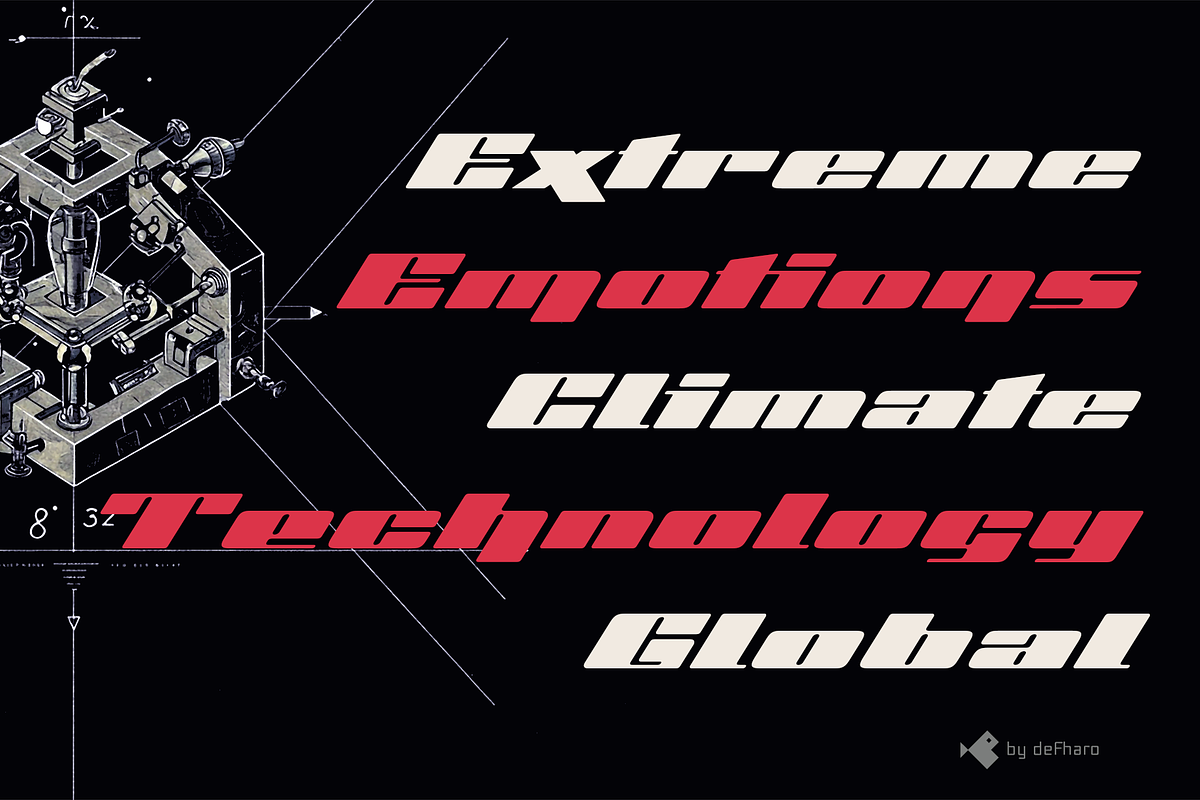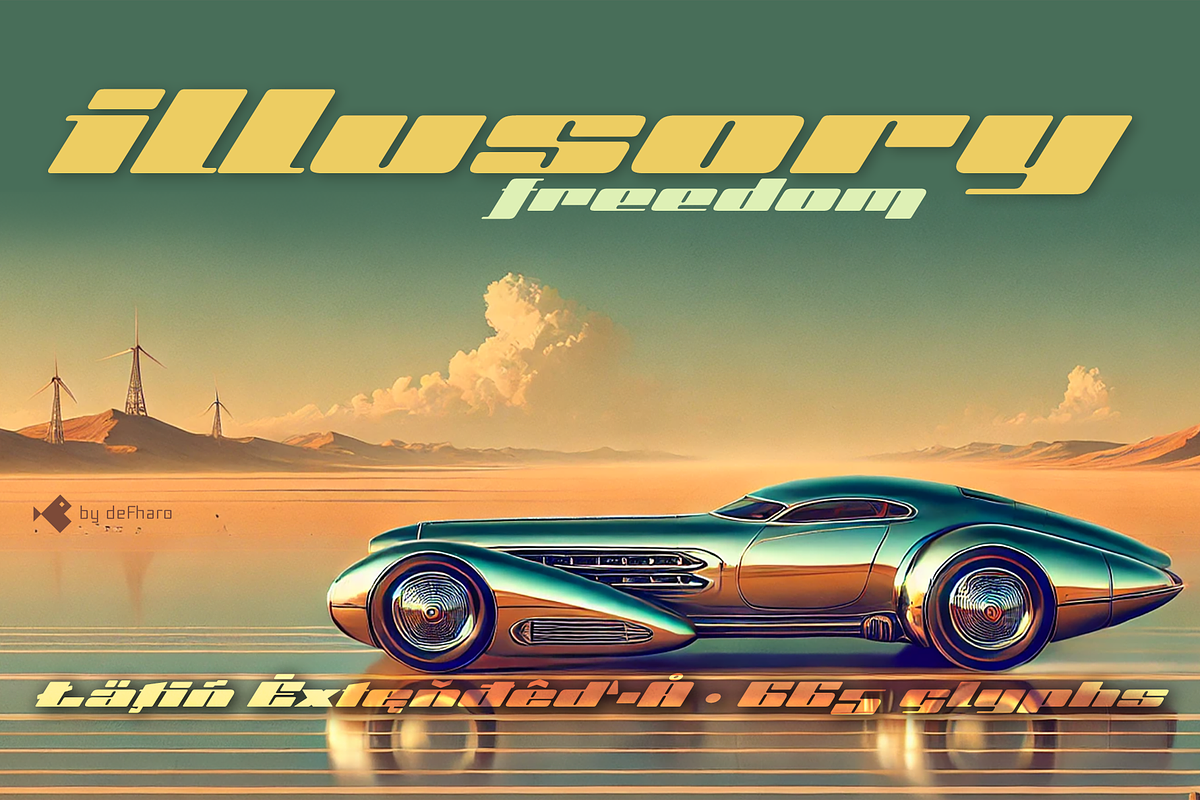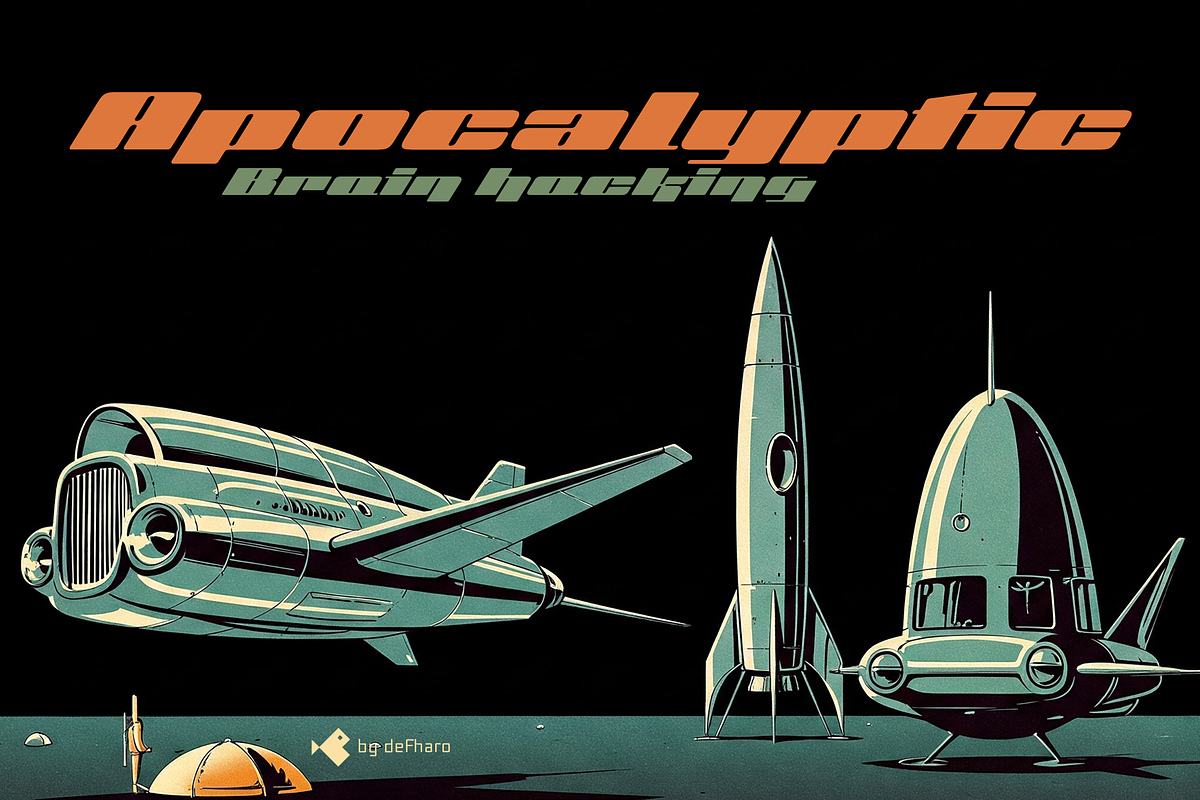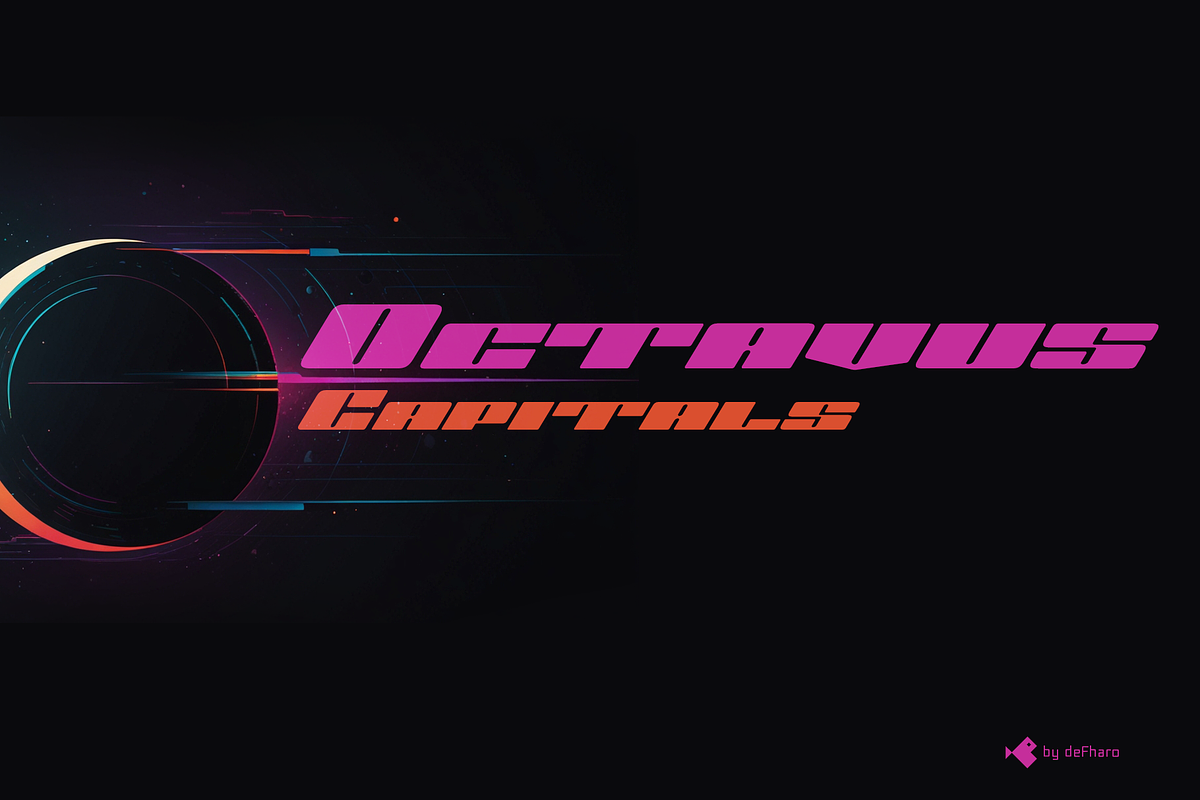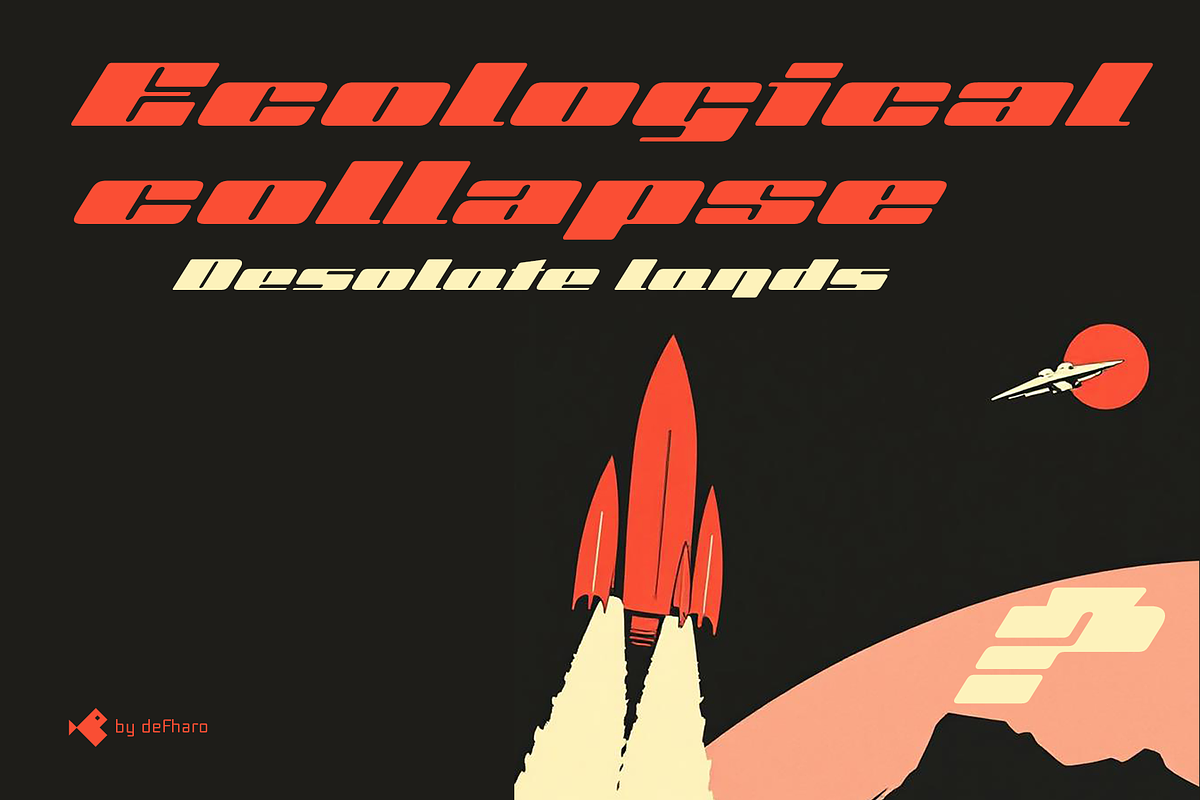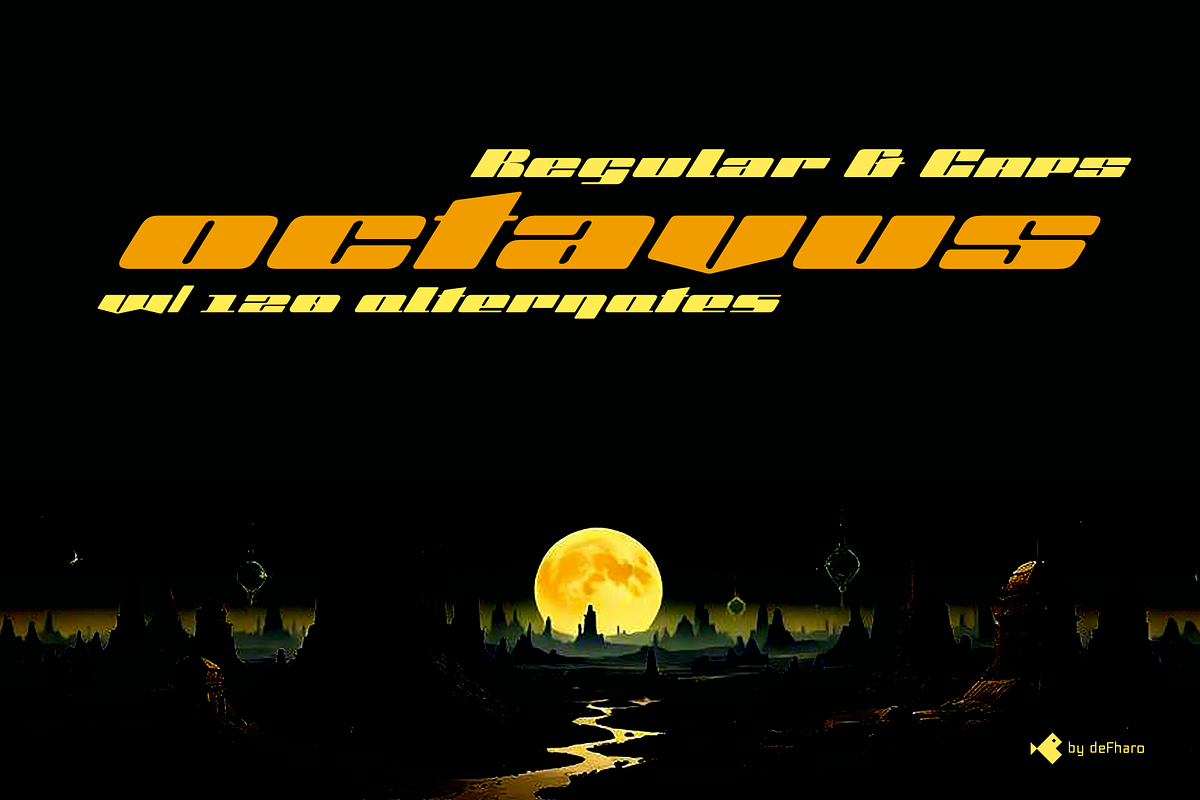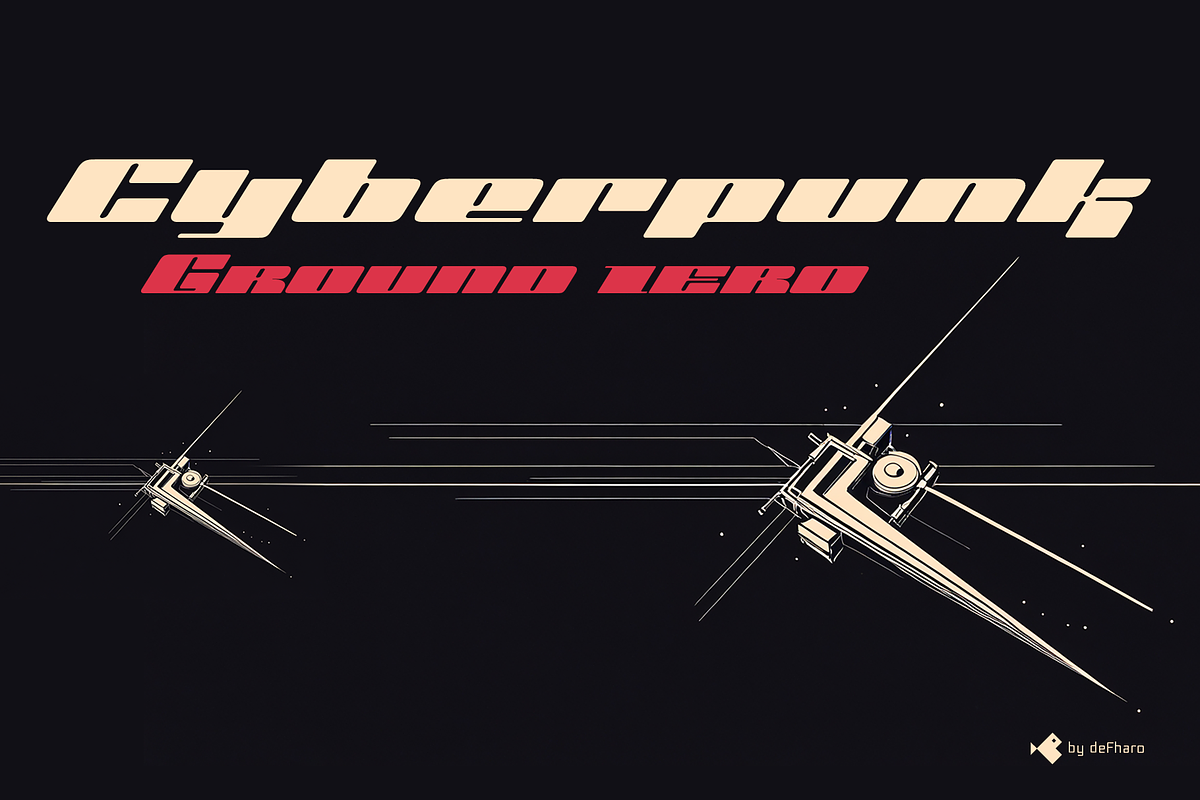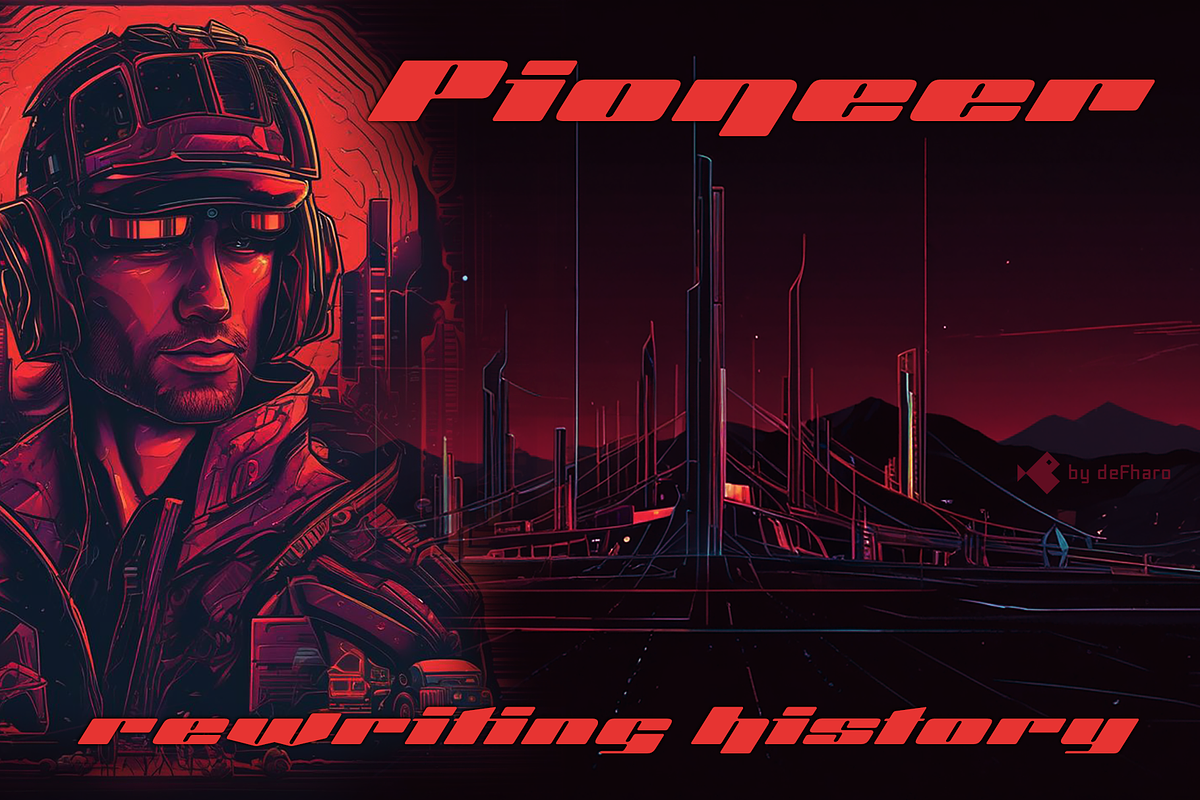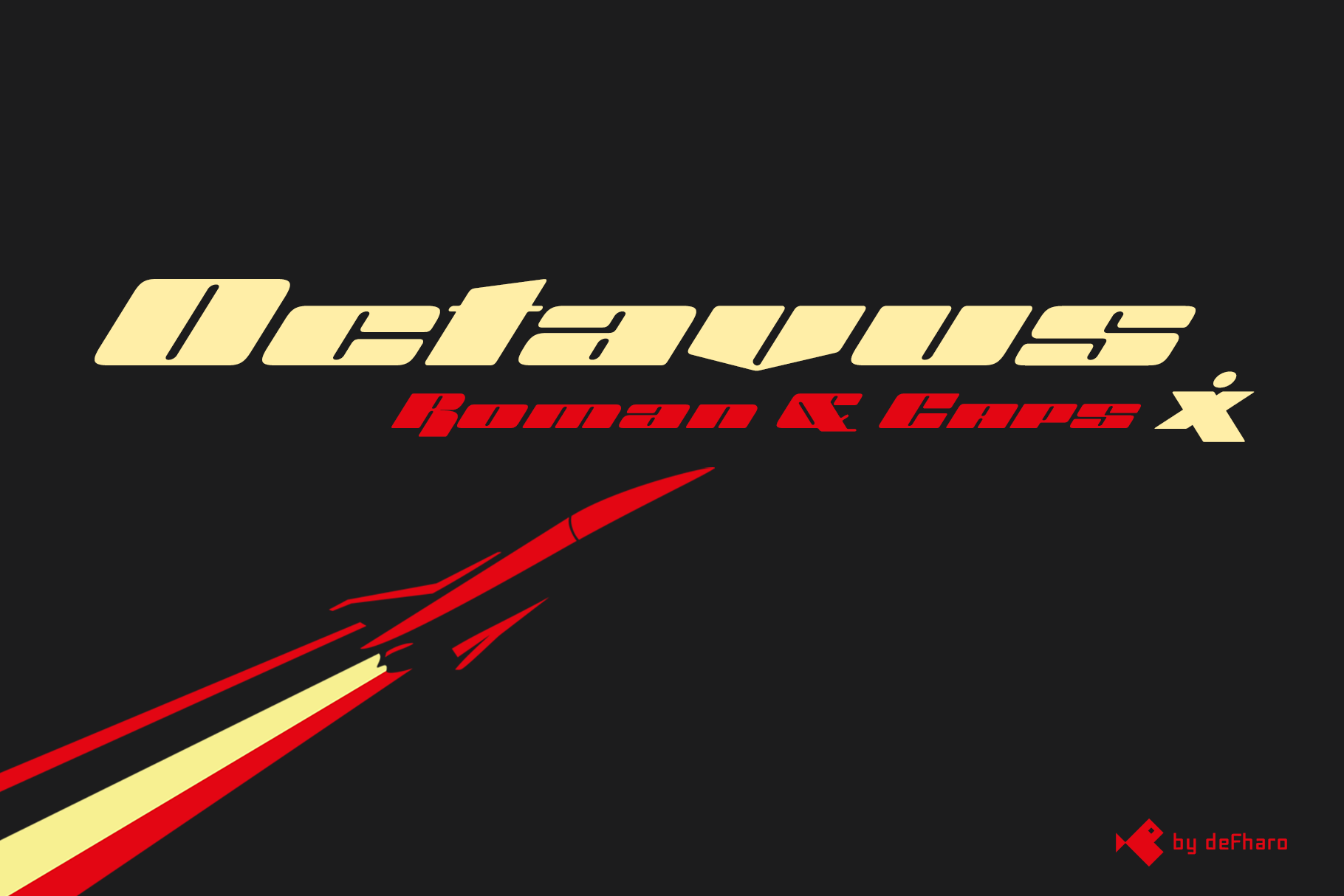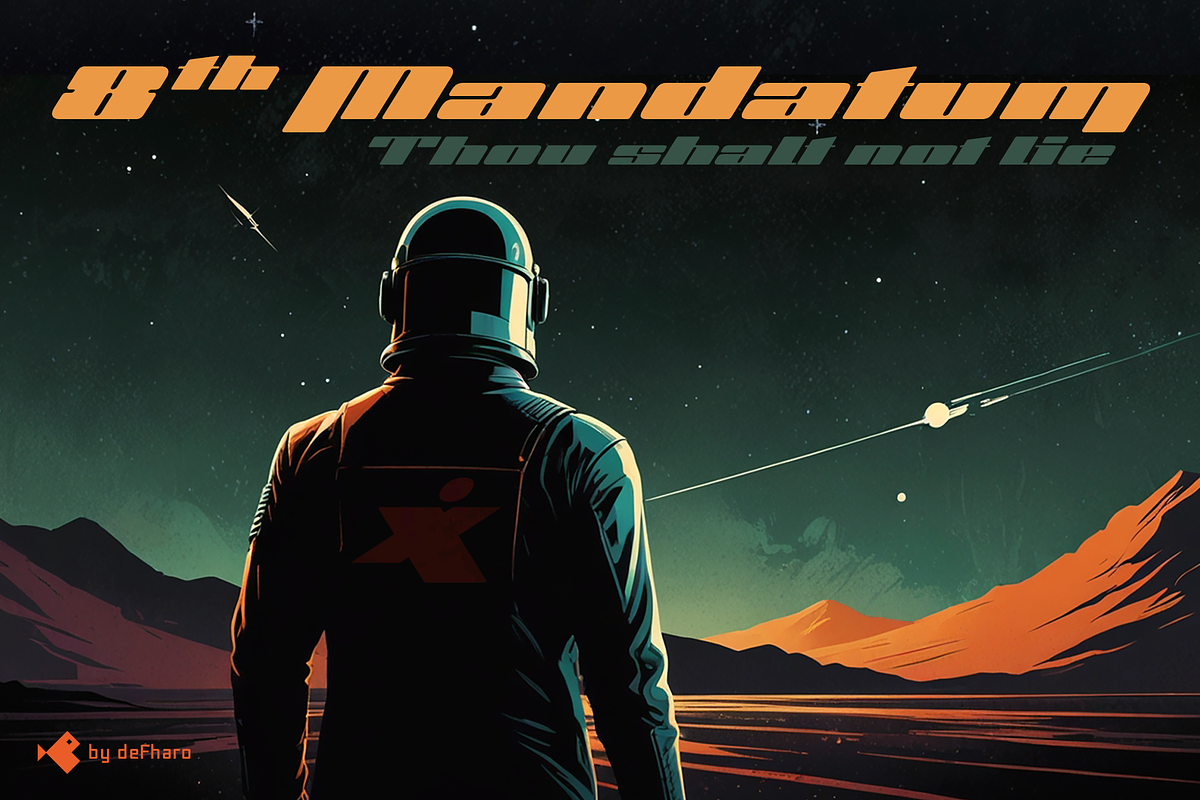
Octavus Slanted | Roman & Caps fonts
Octavus is a retro-futuristic, technological, expanded and slanted typeface, with a 32-degree slant that gives it an unmistakable dynamism and bold minimalism.
This is a robust and bold typeface family, available in two versions: Roman and Capitals. Its expanded proportion and black weight give it an unmistakable personality that delves into bold minimalism.
The 32-degree slant gives it a uniquely dynamic feel; its aesthetic fuses the present and the distant future, and will undoubtedly transport you to impossible universes. It is thick, bold, and modern, with a dramatic contrast between its horizontal and vertical stems. Each letter, with a rounded finish and steep slant, creates an incredibly dynamic and technological visual context with vintage connotations.
The font includes alternate drop caps, lowercase letters, and arrows
665 glyphs. Latin Extended-A. 120 alternates.
Octavus the symbol of Bitcoin and currency symbols.